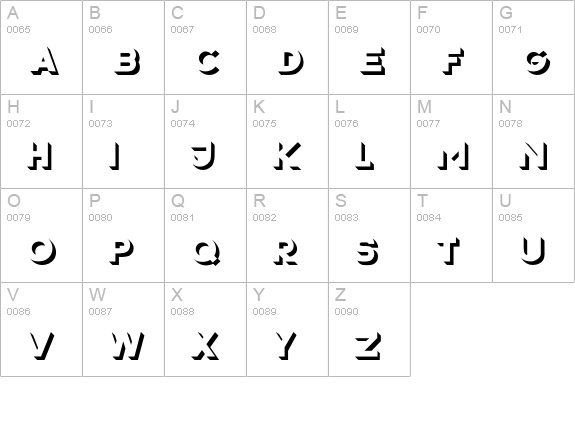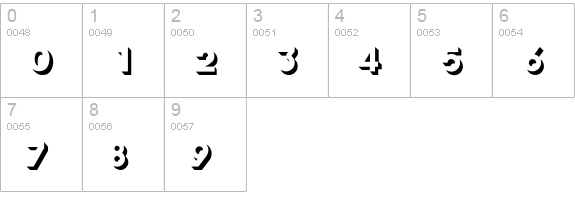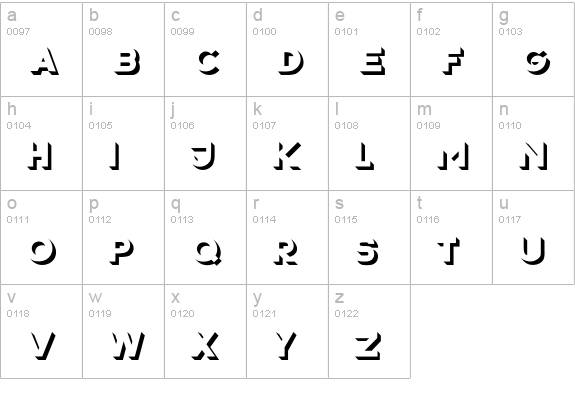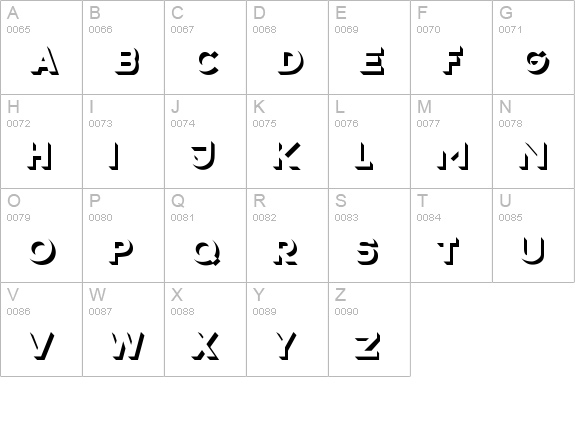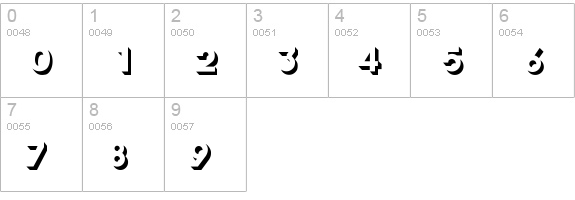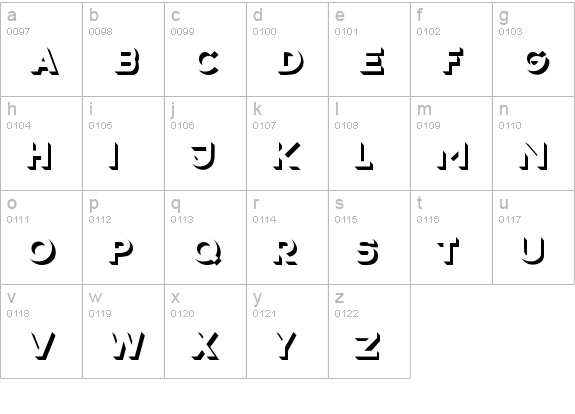
P22Bayer-Shadow Font Details
P22Bayer-Shadow is a strikingly unique and eye-catching font that effortlessly combines elegance and modernity. Its sleek and sharp edges create a sense of sophistication, while its bold and prominent shadows add depth and dimension to each letterform. This font is perfect for projects that require a touch of both classic and contemporary design. The P22Bayer-Shadow font is a versatile typeface that can be used across various design mediums. Whether it's for print or digital media, this font will surely make a lasting impression. Its clean and well-defined characters ensure legibility, making it suitable for both headlines and body text. One of the most notable features of the P22Bayer-Shadow font is its ability to create a sense of drama and impact. Each letter is meticulously crafted to showcase the intricate details of its shadow, giving it a three-dimensional effect that captivates the viewer. And the best part? P22Bayer-Shadow font is available for free download at FontsMarket.com. This means that designers, artists, and enthusiasts alike can enjoy the elegance and versatility of this font without any cost. With just a few clicks, you can enhance your designs with this stunning typeface. So whether you're working on a branding project, creating a captivating poster, or designing a visually appealing website, the P22Bayer-Shadow font will undoubtedly elevate your work to new heights. Its striking appearance and freely available download make it a must-have for any designer's toolkit.